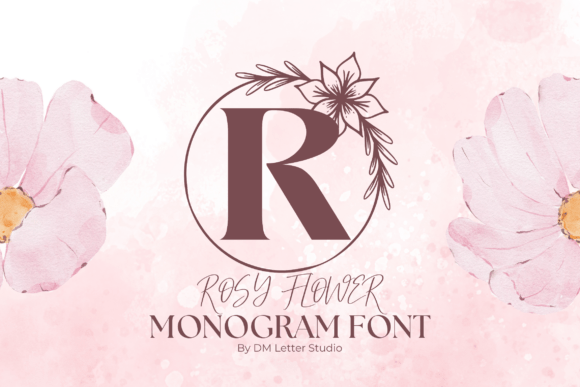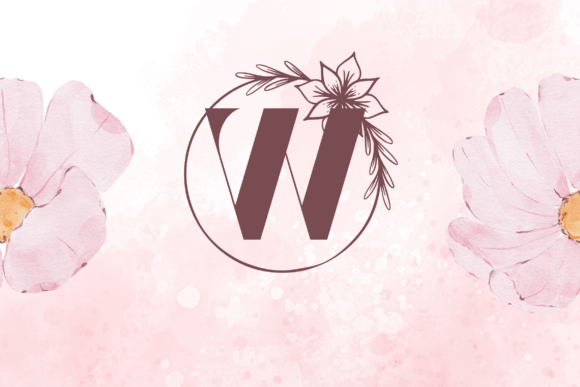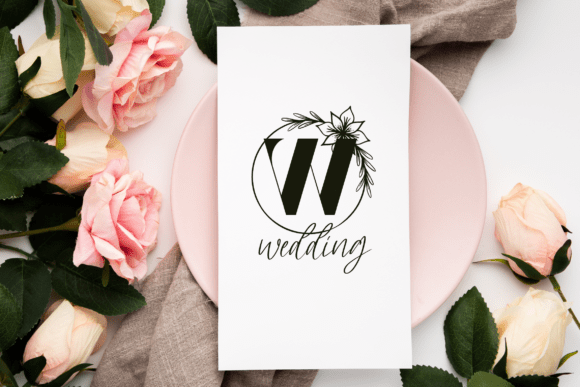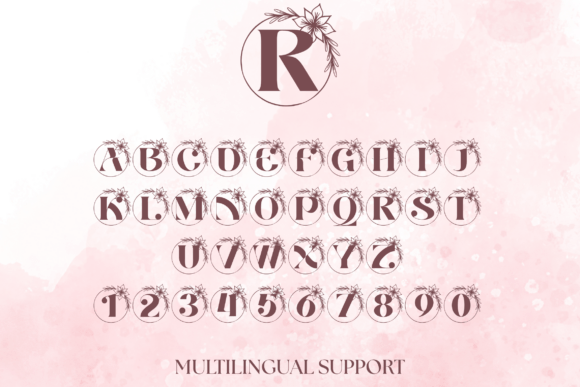
Rosy Flower Monogram Font
About the Rosy Flower Monogram Font
Explore the possibilities with Rosy Flower Monogram Font, a font that offers both beauty and functionality. Rosy Flower Monogram is a beautifully ornate monogram font featuring delicate rose-inspired floral details. Designed with elegance and romance in mind, this decorative typeface is perfect for wedding invitations, feminine branding, personal stationery, and spring-themed designs. Its soft botanical elements bring a timeless charm to any creation.
Rosy Flower Monogram excels in applications requiring a touch of delicate elegance, such as logos for beauty brands, wedding stationery, or feminine product packaging. It also works well for short headlines or quotes in marketing materials where a romantic and sophisticated feel is desired. However, its ornate nature makes it unsuitable for body text or UI elements; the intricate details would be difficult to read at smaller sizes.
Pairing Rosy Flower Monogram with a clean sans-serif like Montserrat or a classic serif such as Garamond creates a balanced design. The contrast between the ornate monogram and the simpler typeface provides visual interest without overwhelming the reader. For a more playful feel, consider pairing it with a script font like Great Vibes, but use it sparingly to avoid visual clutter.
The font’s overall personality is undeniably romantic and elegant, conveying a sense of timeless charm and sophistication. Its delicate flourishes suggest femininity and refinement, making it an ideal choice for brands or projects aiming to project a luxurious or graceful image.
Rosy Flower Monogram Font Usage Examples
Rosy Flower Monogram Font Example